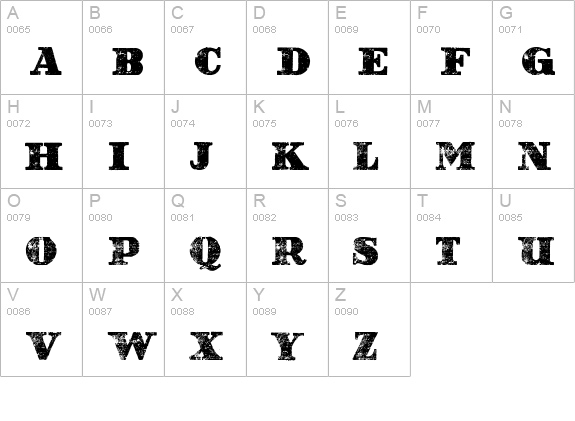
Western Grungy by Marta van Eck Font Details
Western Grungy by Marta van Eck is a captivating and rugged font that exudes a sense of rebelliousness and edginess. Its distressed and grungy appearance adds a unique and gritty charm to any design project. With its bold and irregular letterforms, this font is perfect for creating eye-catching headlines, posters, album covers, and more. The Western Grungy font effortlessly combines elements of the Wild West with a modern twist, making it a versatile choice for both vintage-inspired designs and contemporary artwork. Its rough and weathered texture gives a worn-out and authentic feel, transporting your audience to a bygone era filled with cowboys, saloons, and dusty trails. What makes Western Grungy even more appealing is that it is available for free download at FontsMarket.com. This means that you can easily access this incredible font and incorporate it into your projects without any cost. Whether you're a professional designer or a hobbyist, this font allows you to add a touch of ruggedness and character to your creations without breaking the bank. So go ahead, unleash your creativity and dive into the world of Western Grungy by Marta van Eck. Download this free font from FontsMarket.com and embark on a design journey that will captivate and inspire. Let Western Grungy be the missing piece that brings your artwork to life, leaving a lasting impression on your audience.